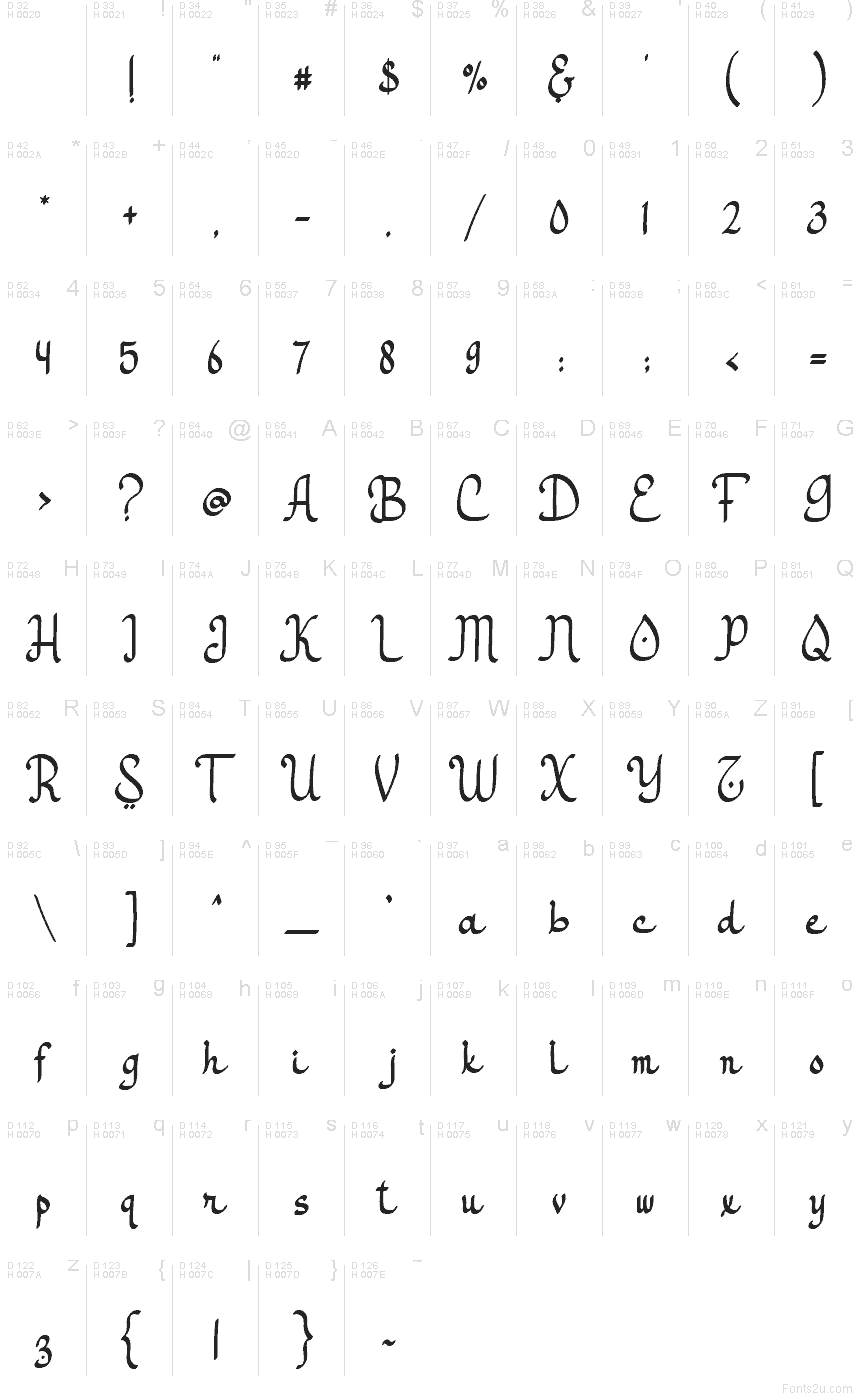
Qamar Ramadhan font by Bluestype Studio is a free faux-Arabic script typeface that brings a flowing, crescent-like rhythm to Latin letters. Its soft loops, gently tilted strokes, and connecting curves echo handwritten Ramadan greeting cards and lantern-lit signage, without being hard to read. The letters feel inky and fluid, as if drawn with a slightly flexible brush on textured paper.
Using Qamar Ramadhan, your headings instantly evoke a warm, Middle Eastern mood that works beautifully for Ramadan promotions, Eid cards, halal food branding, mosque event posters, book covers, and social media quotes. This free font shines at larger sizes where its curls and swashes can breathe; pair it with a clean sans serif for body text to keep layouts clear and balanced.